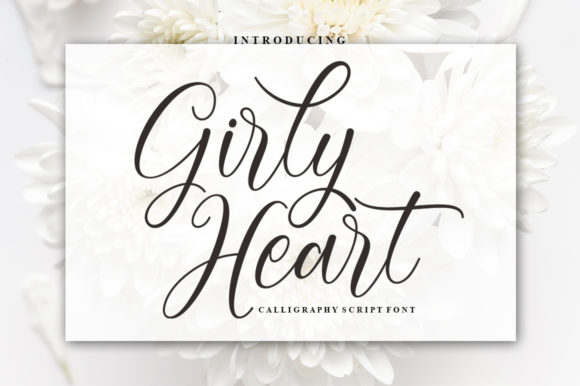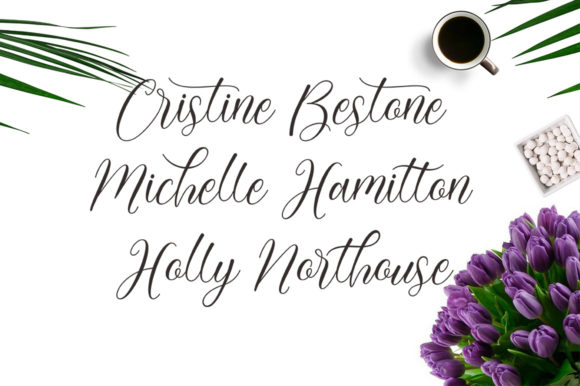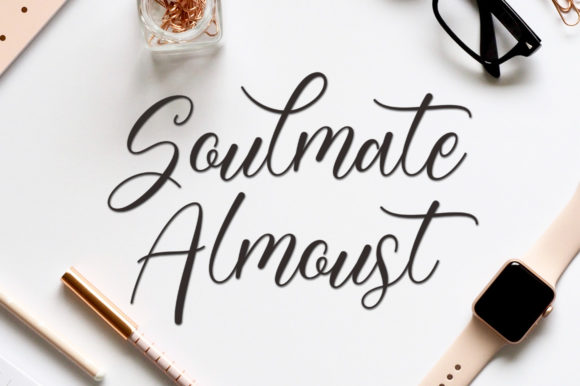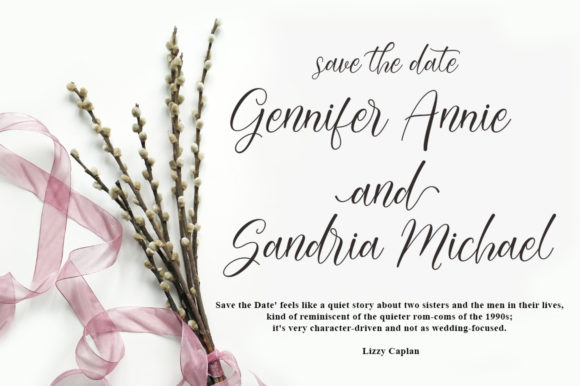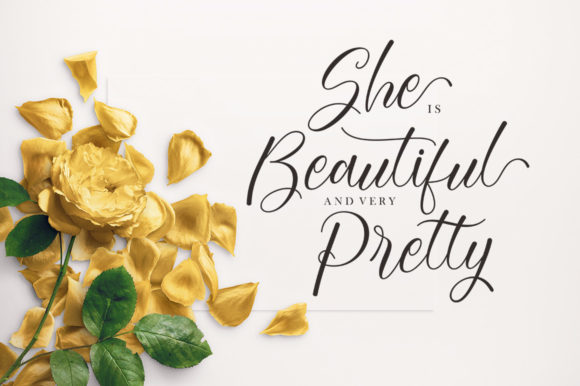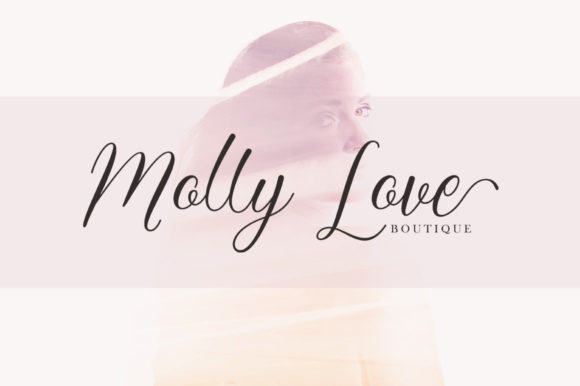
Introduction to Girly Heart Font
The Girly Heart is a sweet hand-lettered font.
It has a casual, yet dynamic look and a dancing baseline It can be use to add an authentic look to your logos, branding, greeting cards, quotes, wedding stationary, and much more.
Key Features of Girly Heart Font